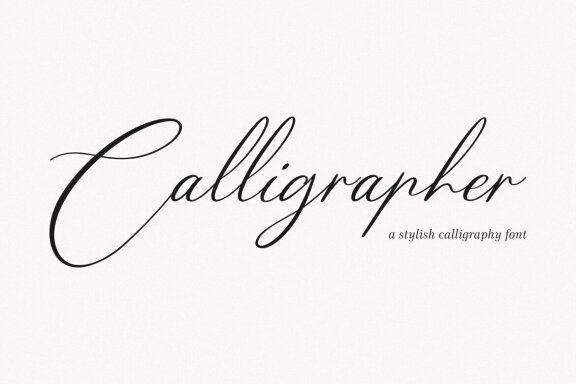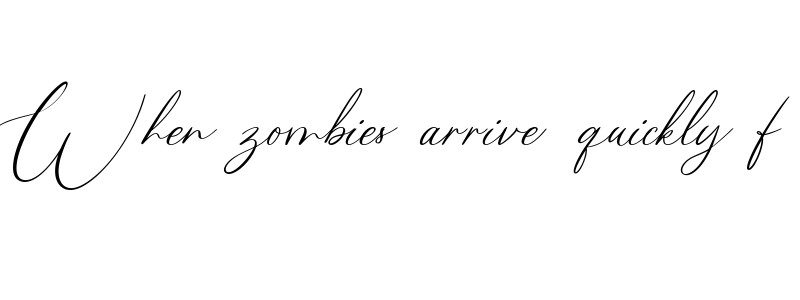
Calligrapher
Proudly Present, Calligrapher
Calligrapher Is a Stylish Calligraphy Handwritten Font
Calligrapher is perfect for product packaging, branding project, megazine, social media, wedding, or just used to express words above the background.
• calligrapher is a stylish calligraphy handwritten font
• calligrapher is perfect for product packaging, branding project, megazine, social media, wedding, or just used to express words above the background.